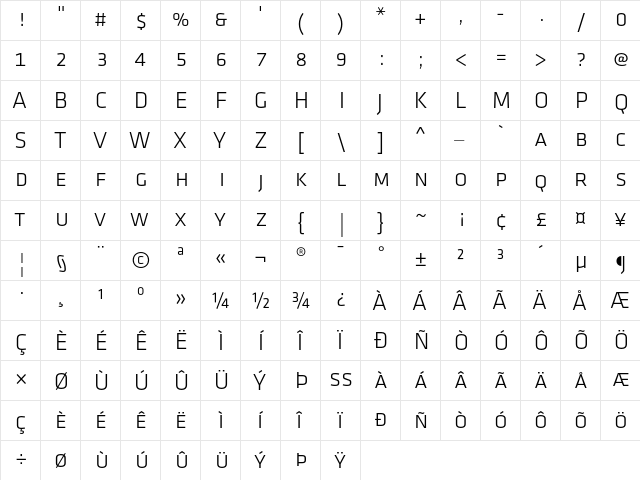
Klavika Light Caps Light
Design Context for Klavika Light Caps Typeface
Klavika Light Caps takes a measured approach to typography — its balanced proportions and neutral character make it a reliable workhorse for both digital and print work. The delicate stroke weight brings airiness and refinement to layouts.
Dating back to 2004, this typeface is available in OpenType (OTF) format.